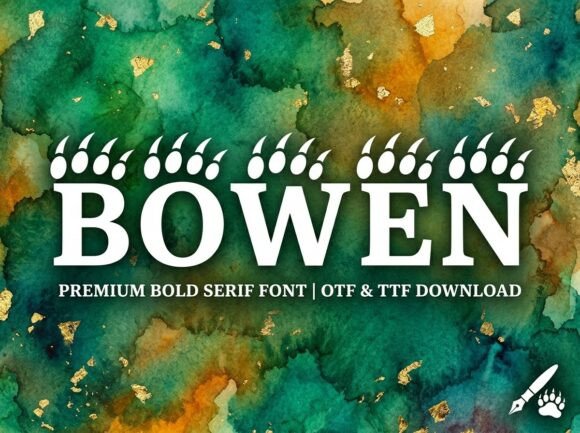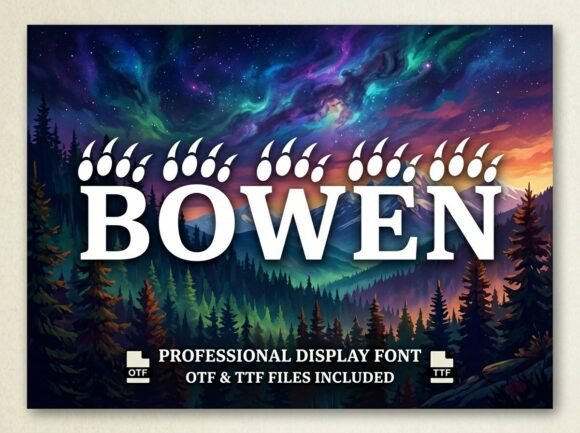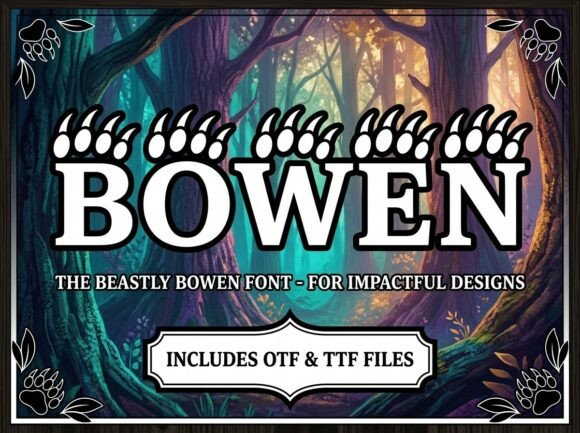
The Ultimate Guide to Bowen Font: Elevate Your Designs with a Stunning Display Font
Have you ever been in the middle of a design project, and suddenly, you’re stuck on finding the perfect font? I recall a particularly frustrating experience while working on a logo design for a client. The project required a bold, eye-catching font that would make the brand stand out. After hours of searching, I stumbled upon Bowen Font, and it instantly became the perfect fit. In this article, we’ll dive into the world of Bowen Font, exploring its features, uses, and everything in between.
What is Bowen Font?
Bowen Font is a decorative display font designed to be the center of attention. With its unique artistic elements and strong visual personality, this font is perfect for creators who want to break away from the ordinary. Its versatility makes it suitable for bold headlines, artistic logos, and creative packaging, while maintaining a professional and polished finish.
- ✨ Unique artistic elements that make it stand out from other fonts.
- ✅ Strong visual personality that’s perfect for bold designs.
- 💯 Versatile and suitable for various design projects, from logos to packaging.
- 👍 Professional and polished finish that elevates any design.
⚠️ As mentioned earlier, Bowen Font is an ALL-CAPS font, which may limit its use for body text or other applications requiring lowercase letters. Additionally, some users might find the font’s decorative nature too bold for certain projects.
🤔 One thing to consider is that the font’s uniqueness might make it less suitable for very long texts or paragraphs, as it may become overwhelming to read.
Bowen Font was designed with inspiration from various artistic movements, including Art Deco and Gothic architecture. The font’s creator aimed to craft a unique, eye-catching design that would make a statement in any project. By combining bold lines, intricate details, and a touch of elegance, Bowen Font was born.